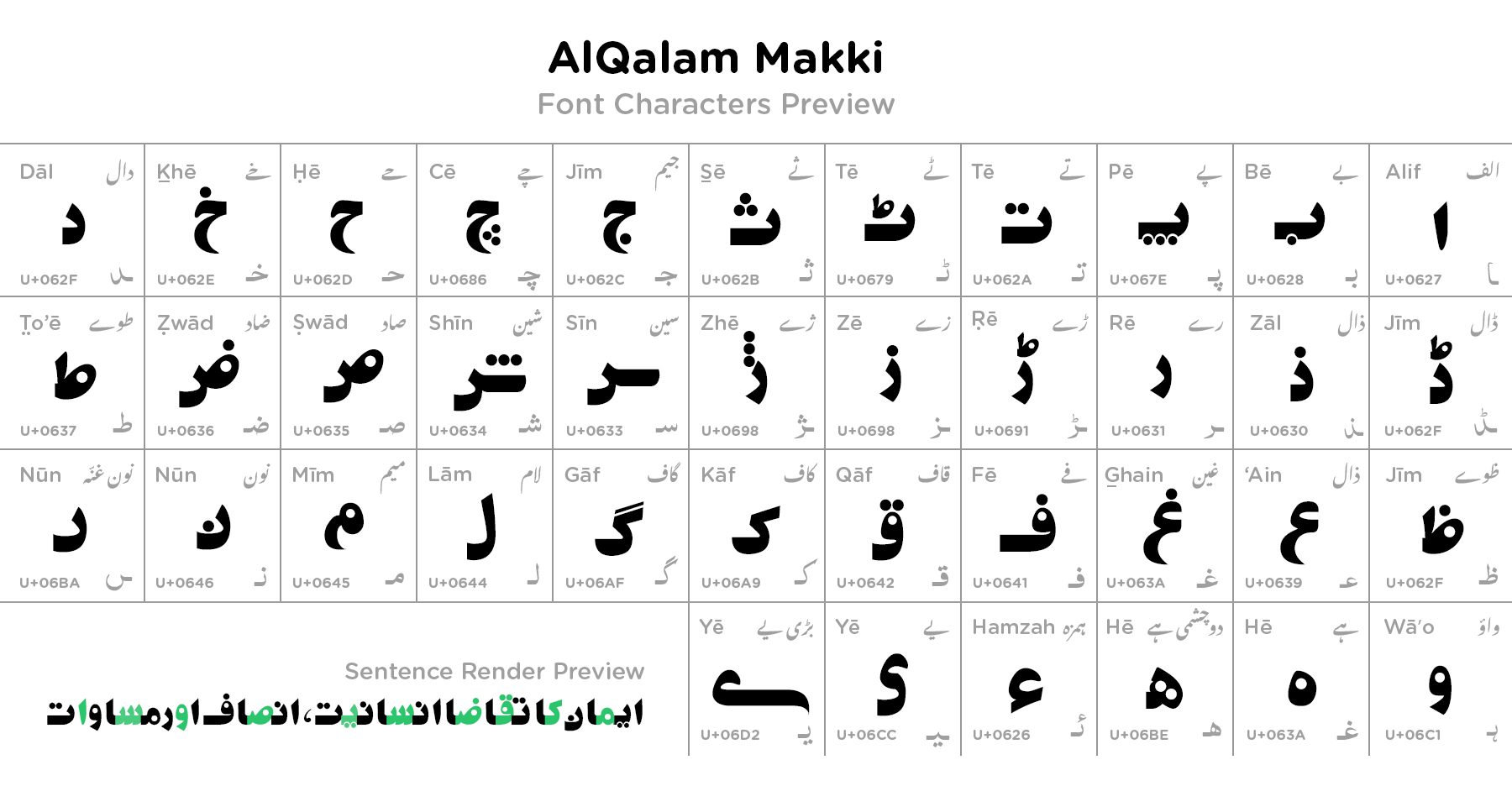
AlQalam Makki is a bold Urdu font designed by Muhammad Ishtiaq Ali Attari, a Pakistani calligrapher from Faisalabad. This font's boldness makes it an appealing choice for short texts needing focus like headers and banners or even business logos and social media advertising posts. This Qalam writing-like filled font will ensure that your message shines through beautifully while maintaining its aesthetics. The font draws inspiration from traditional Islamic calligraphy, particularly the Nastaliq script known for its graceful curves, elongated ascenders and descenders, and expressive letterforms. The letters are condensed, connected in a fluid and harmonious manner, creating a sense of rhythm and movement within the text. The strokes of the letters are not uniform in width, adding to the visual interest. Moreover, it has a character set containing 441 letters and symbols and 497 glyphs with support for Urdu, Arabic, Latin, and Greek.